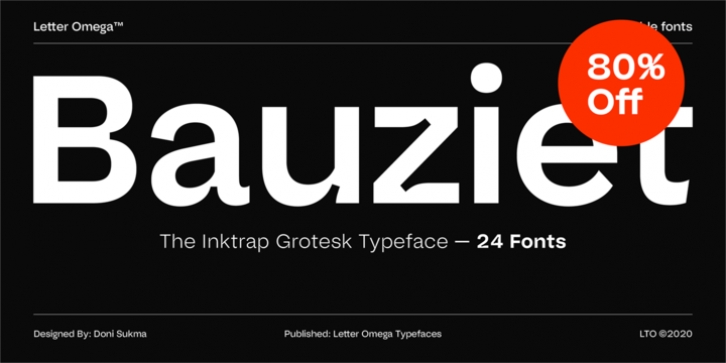
Interesting details to exploring Ink traps with the emergence of variable font technology. A radical choice that features extreme cuts to making the curves sufficiently smooth and sharp transitions. to provide an authentic approach and powerful typographic of modernism and geometrical standards.
Another interesting detail with a neutral and architectural approach, To set alternate Character .ss01 in letters like f t j y, by adding sliced out elements to flat to be horizontal strokes, lowercase square tittle 'i', squares marks, period, comma and single-story lowercase 'g'
Bauziet font family consists of 24 fonts in total. Both families consist of 6 weights plus italic and supports a large number of OpenType features: Ordinal, Fraction, Standard Ligatures, Case-Sensitive Forms, Stylistic Set 01, Stylistic Set 02, Stylistic Set 05, Subscript, Superscript, Tabular Lining, Numerators, Denominators, Discretionary Ligatures, Arrow Discretionary Ligatures.